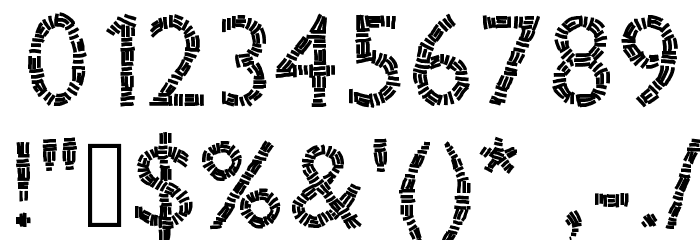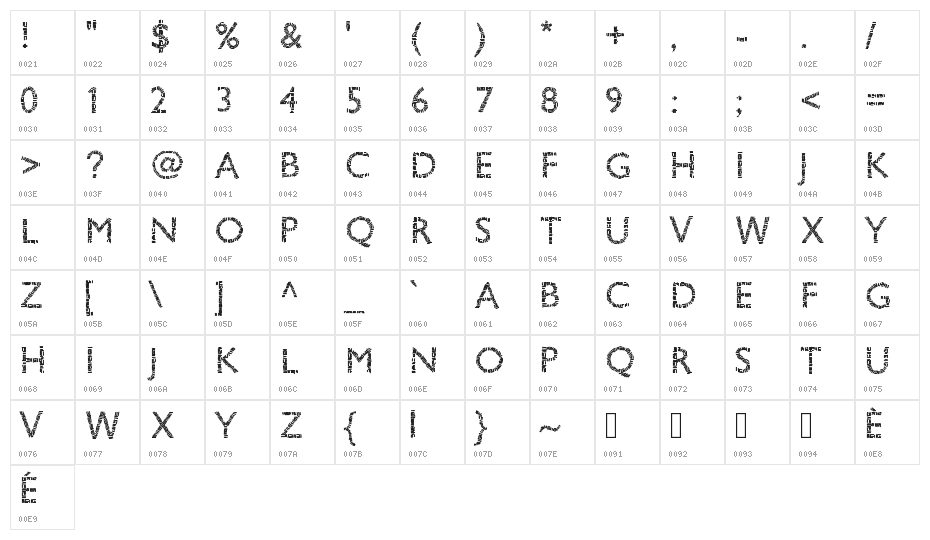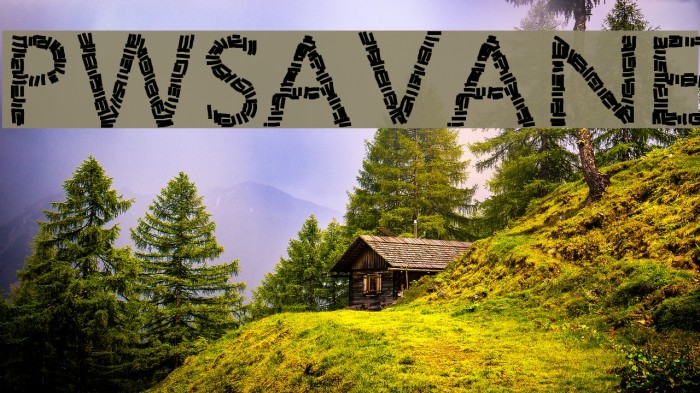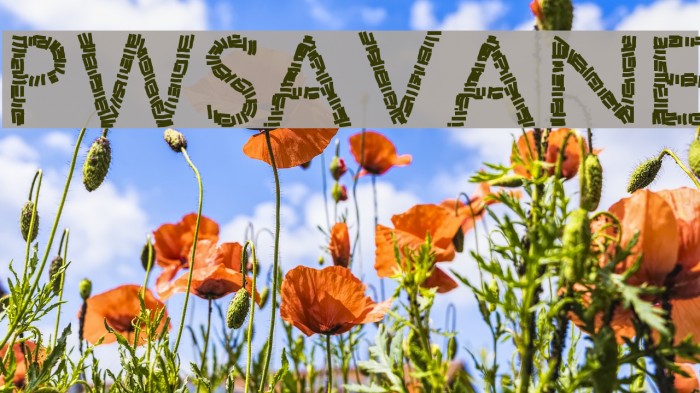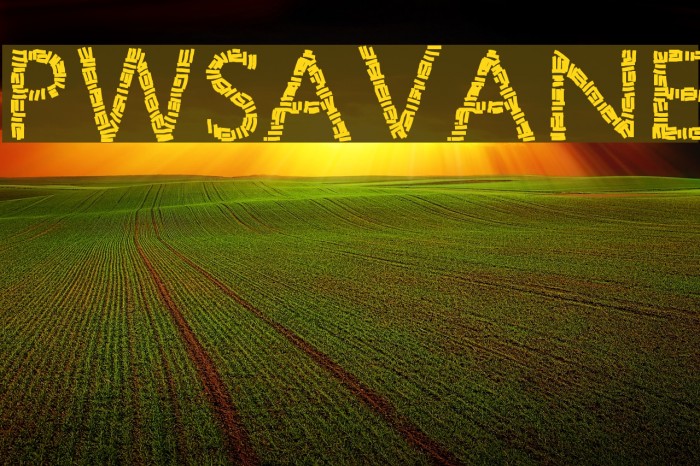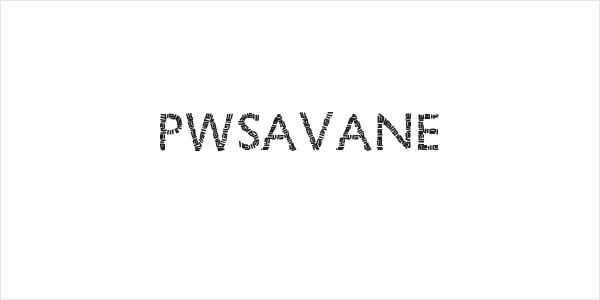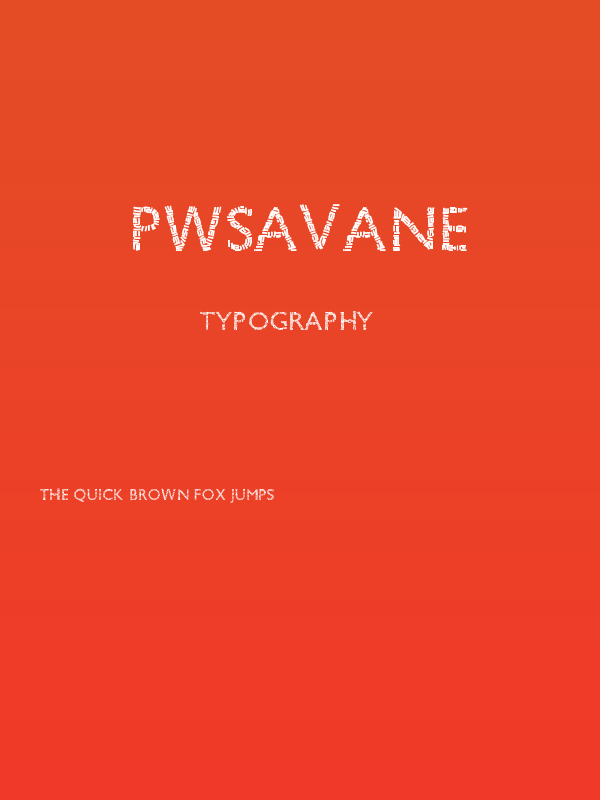
PWSavane Font
PWSavane Description
This font features a unique, textured design that resembles a mosaic or collage of small, irregular shapes forming each character. The letters and numbers are bold and eye-catching, with a playful yet structured appearance. The font's distinctive style makes it stand out, offering a creative and artistic flair. It is suitable for projects that require a decorative touch, such as posters, artistic designs, or branding materials that aim to convey creativity and uniqueness. The font's intricate design adds depth and interest, making it ideal for headlines or display purposes.
| Proposed Projects | Ideal for posters, artistic designs, branding, and any project needing a decorative, creative touch. |